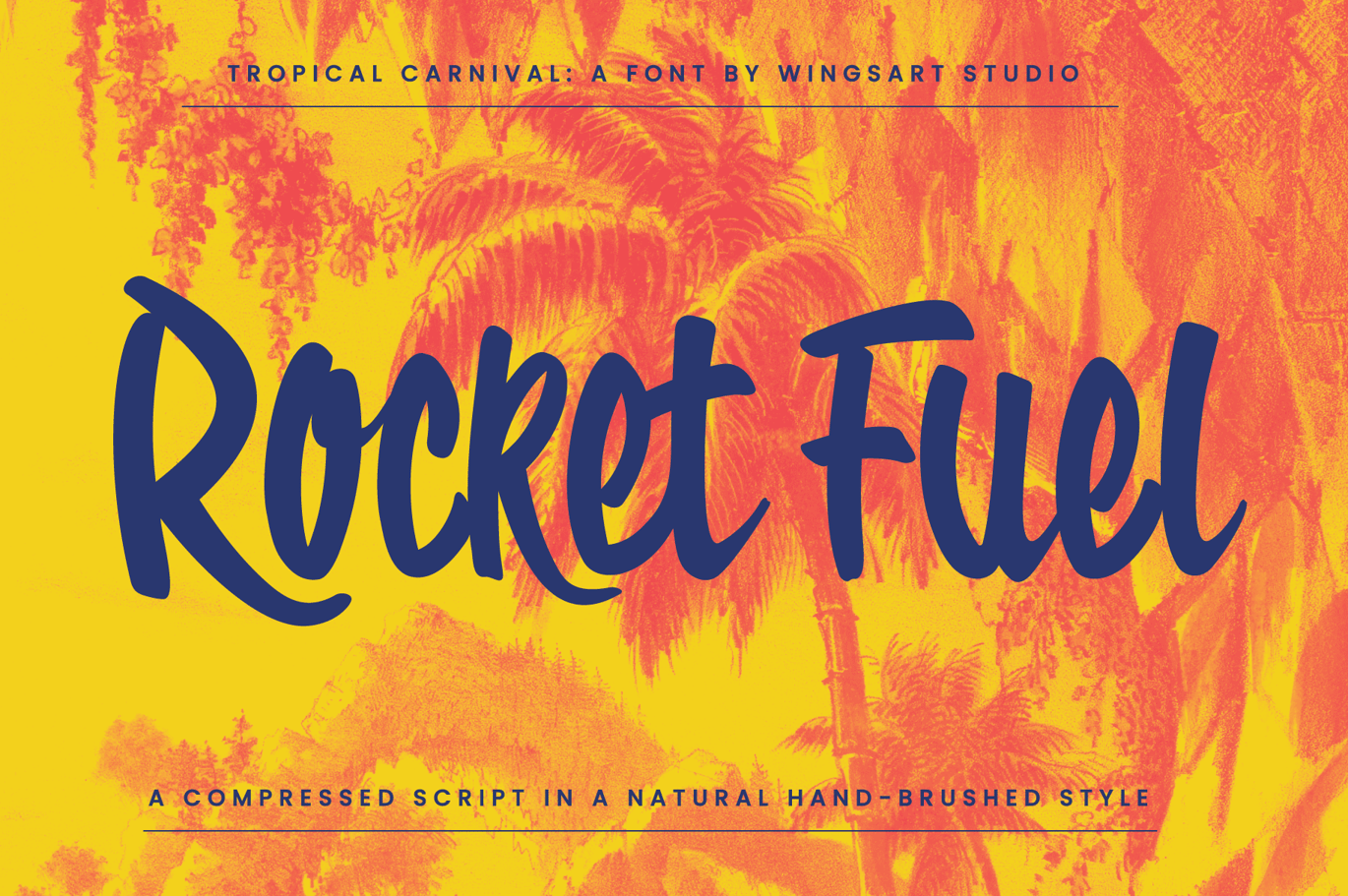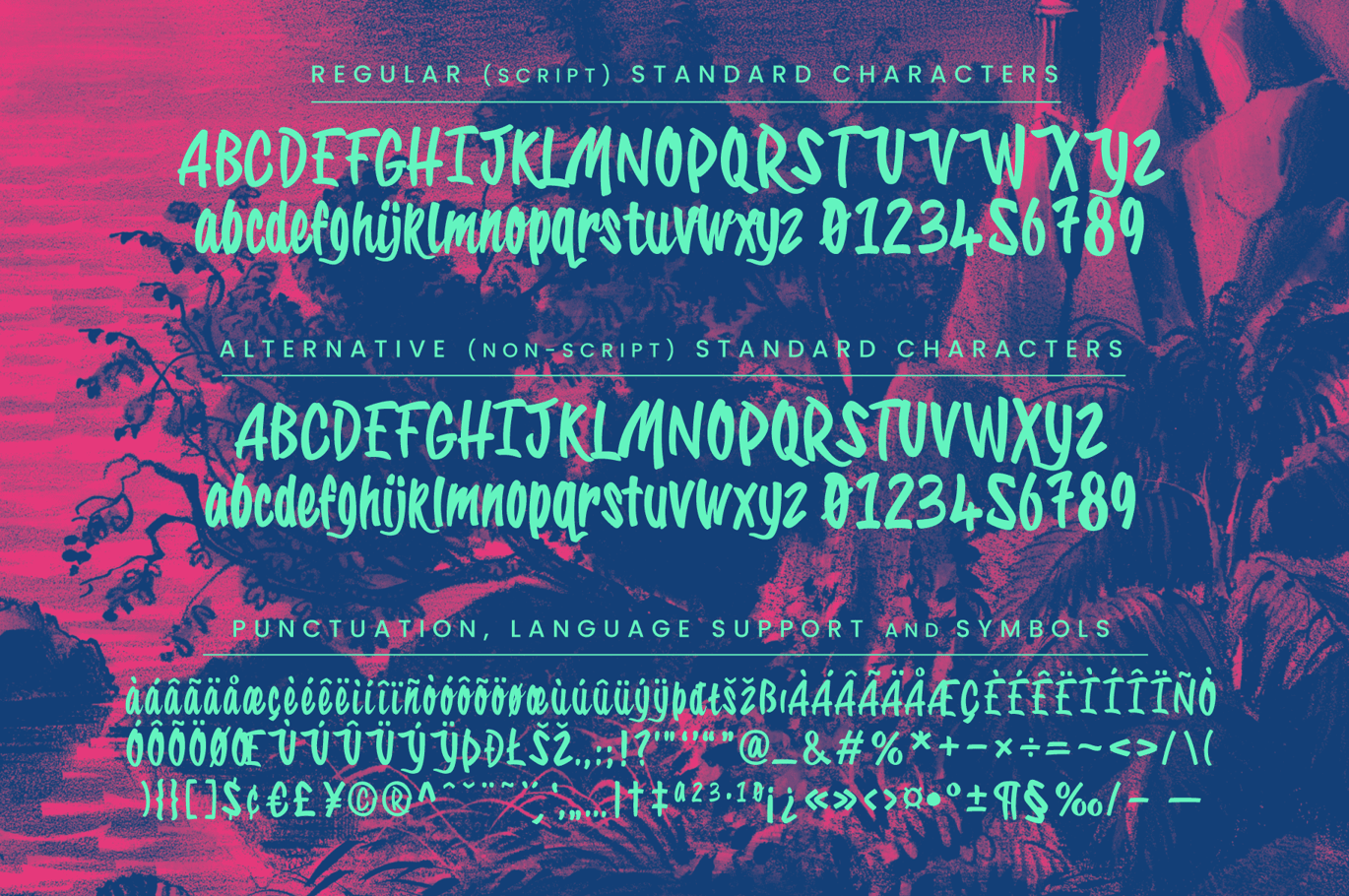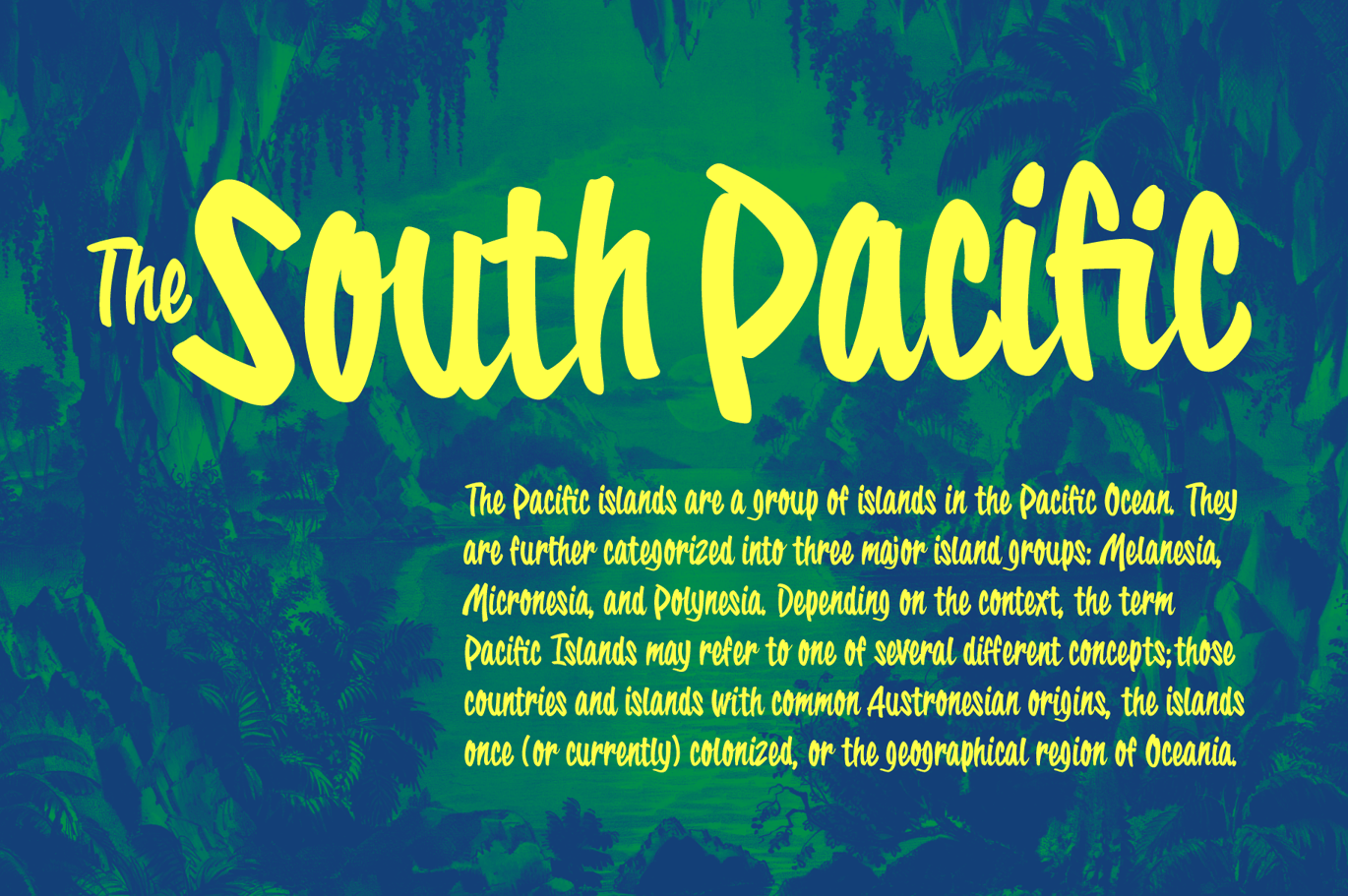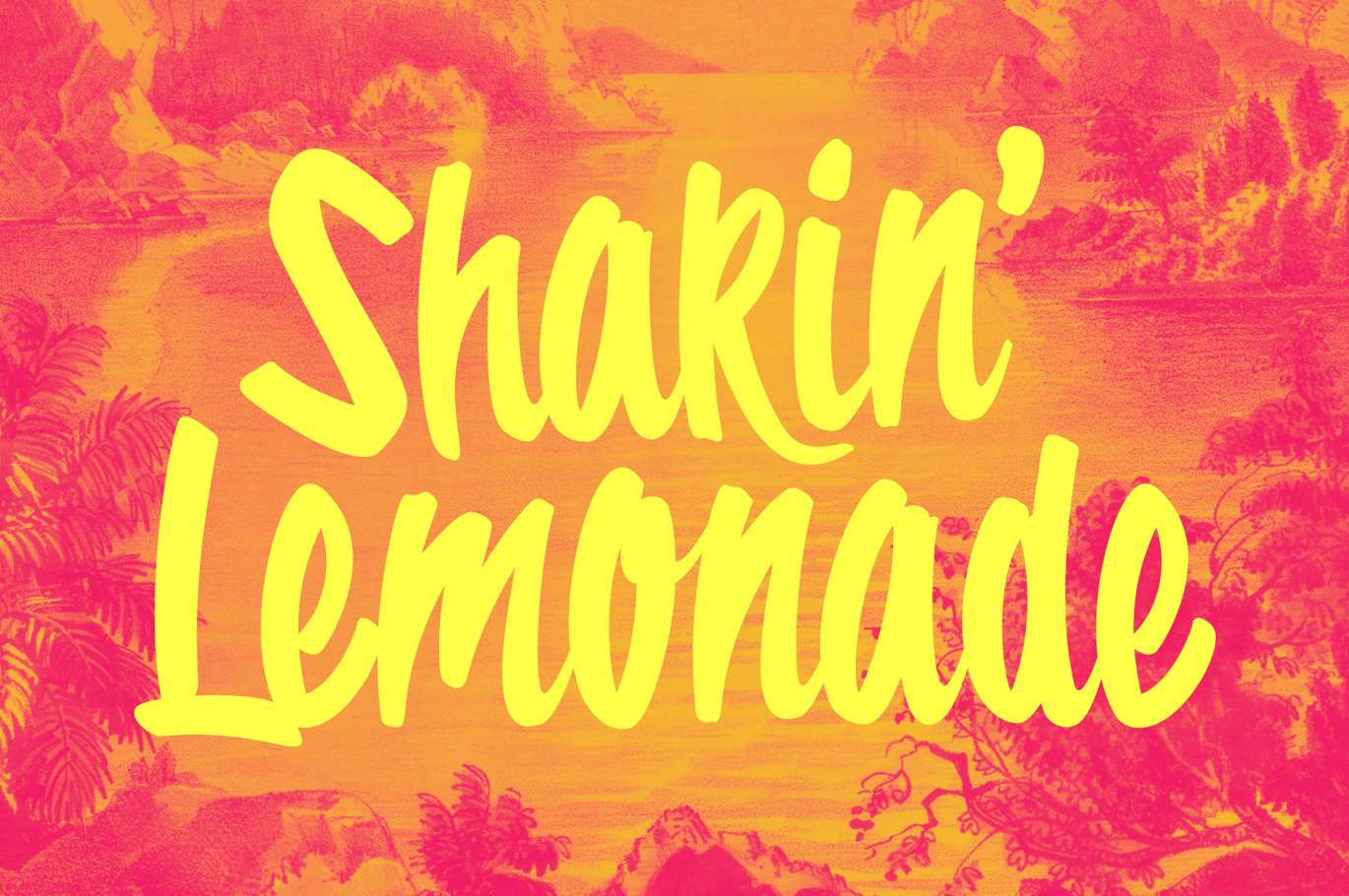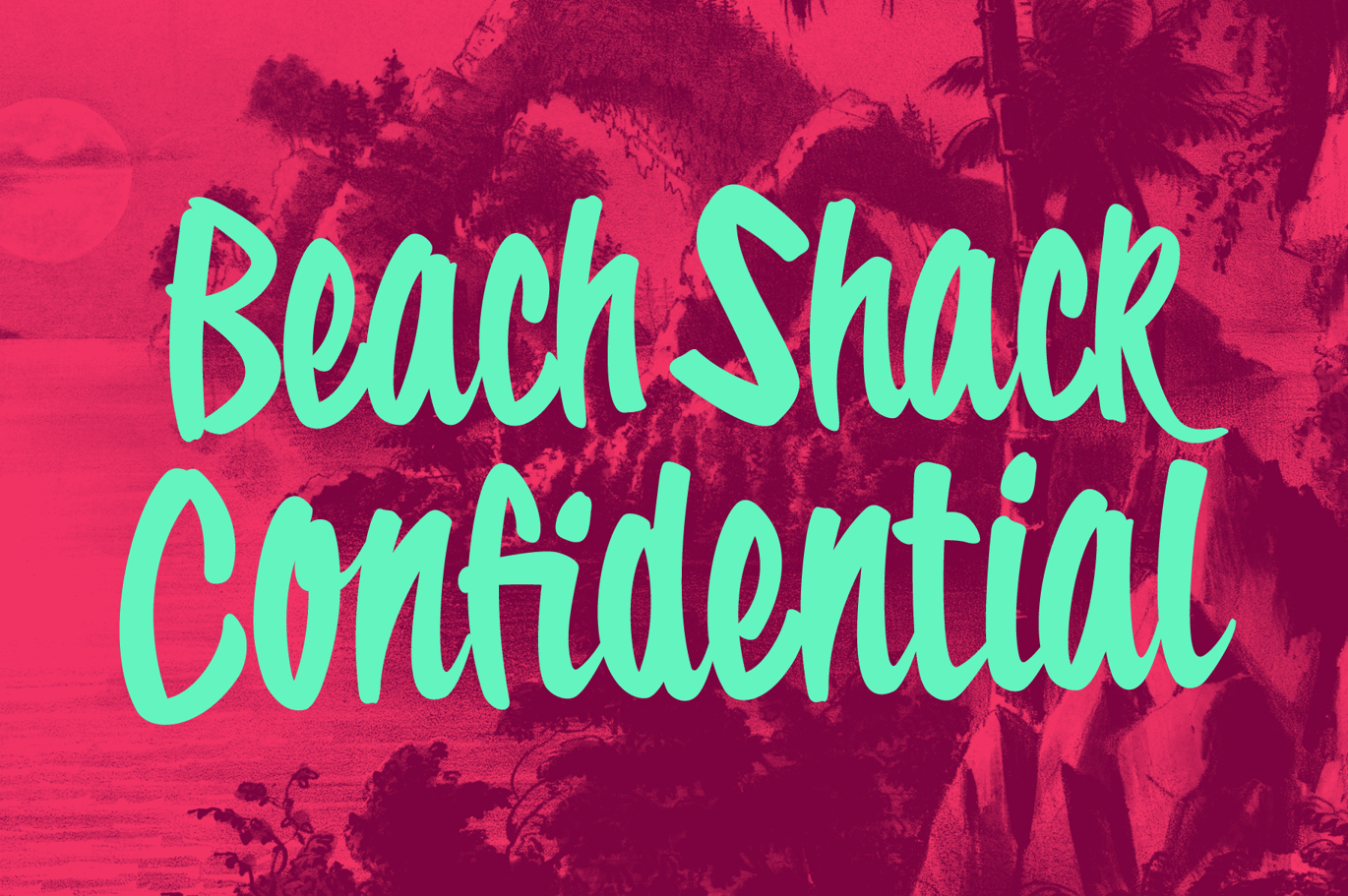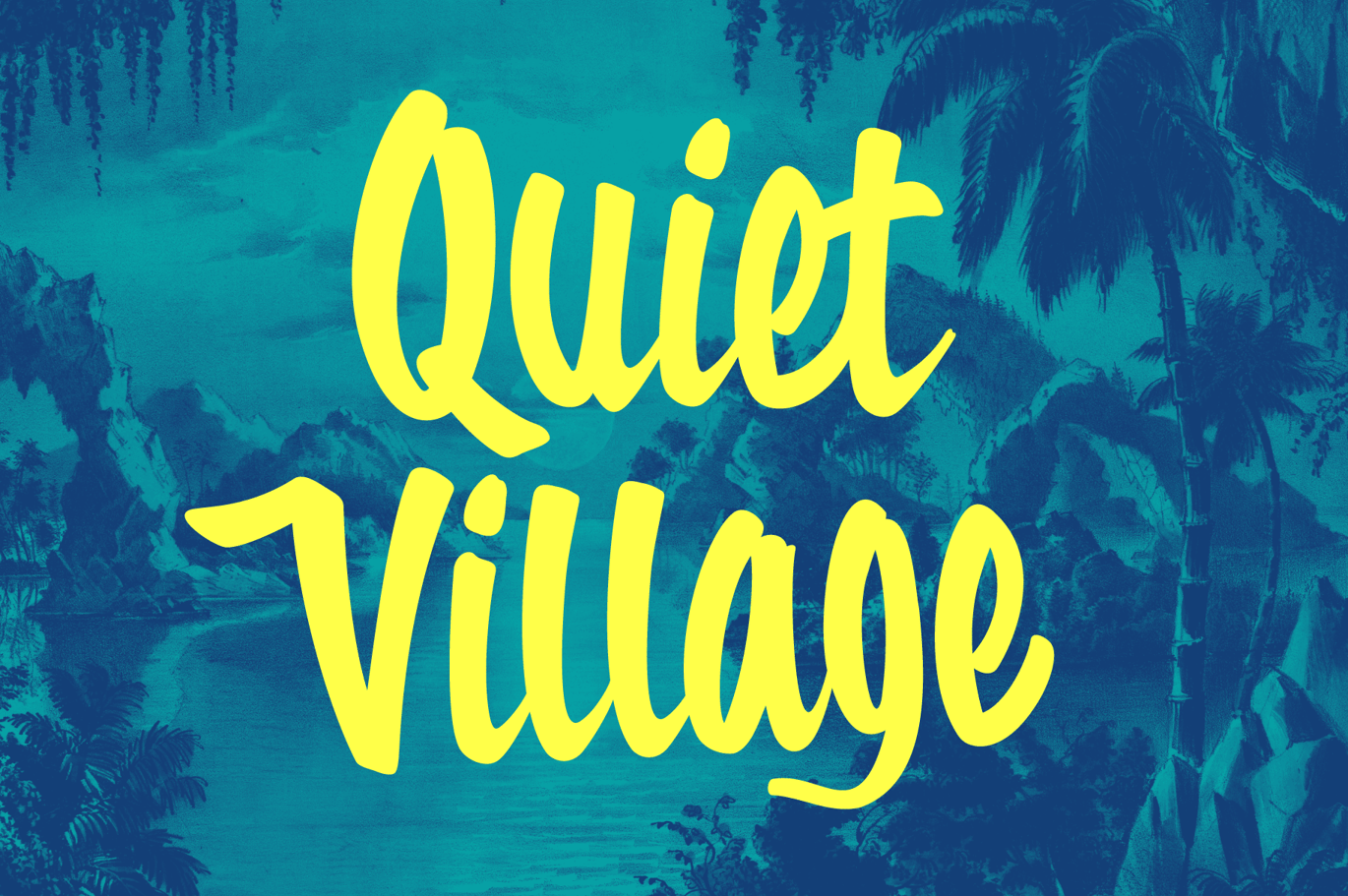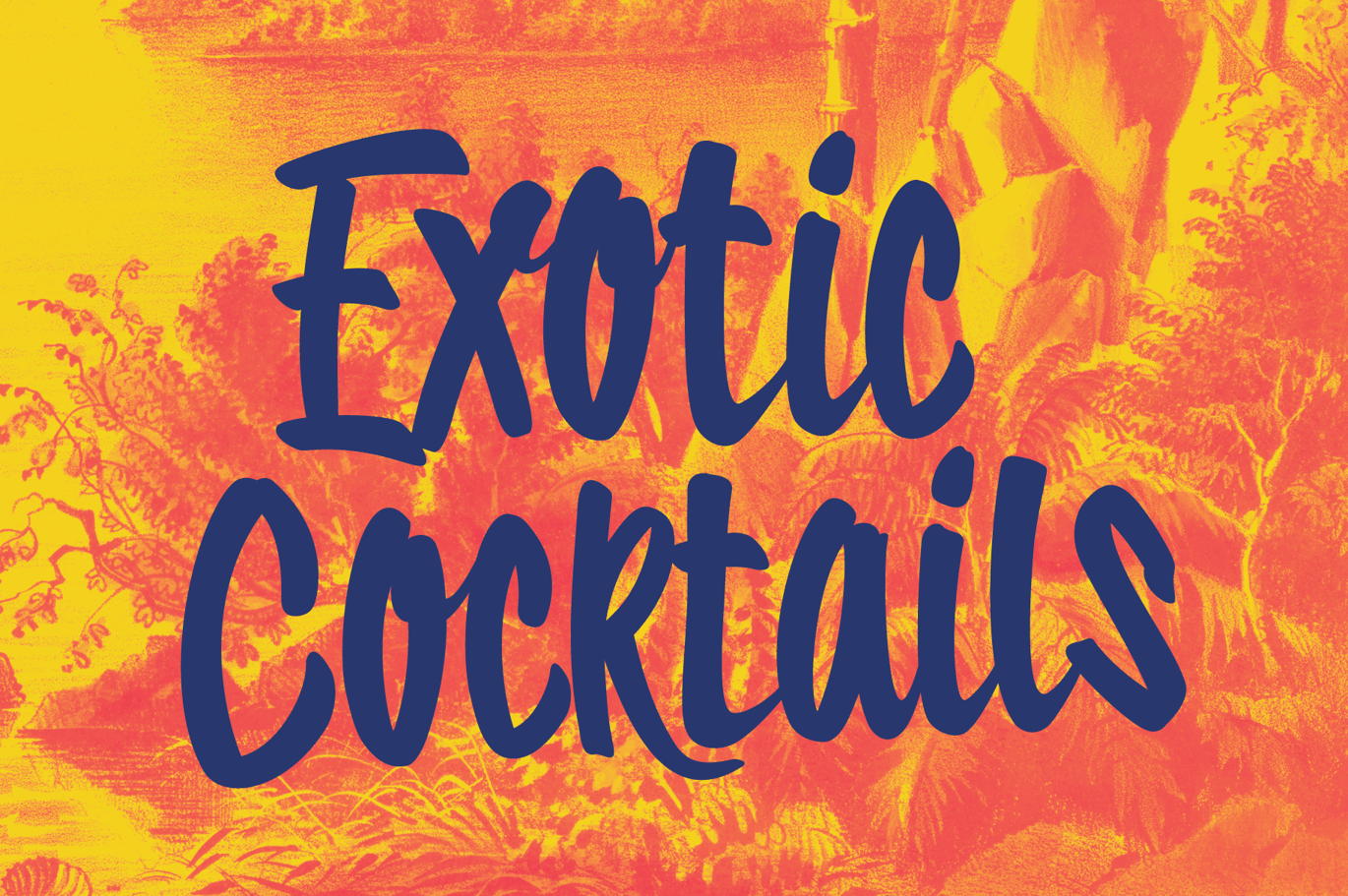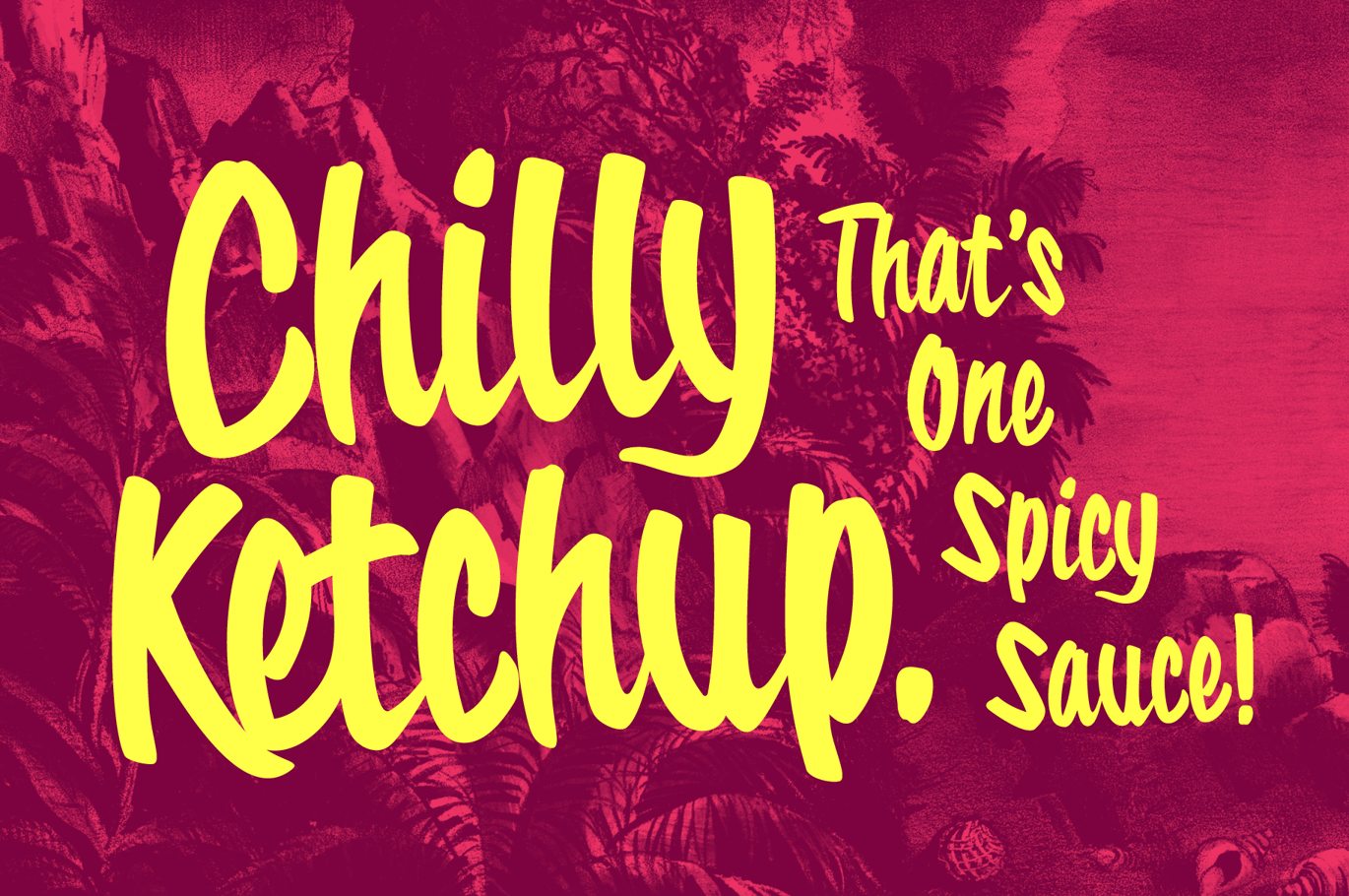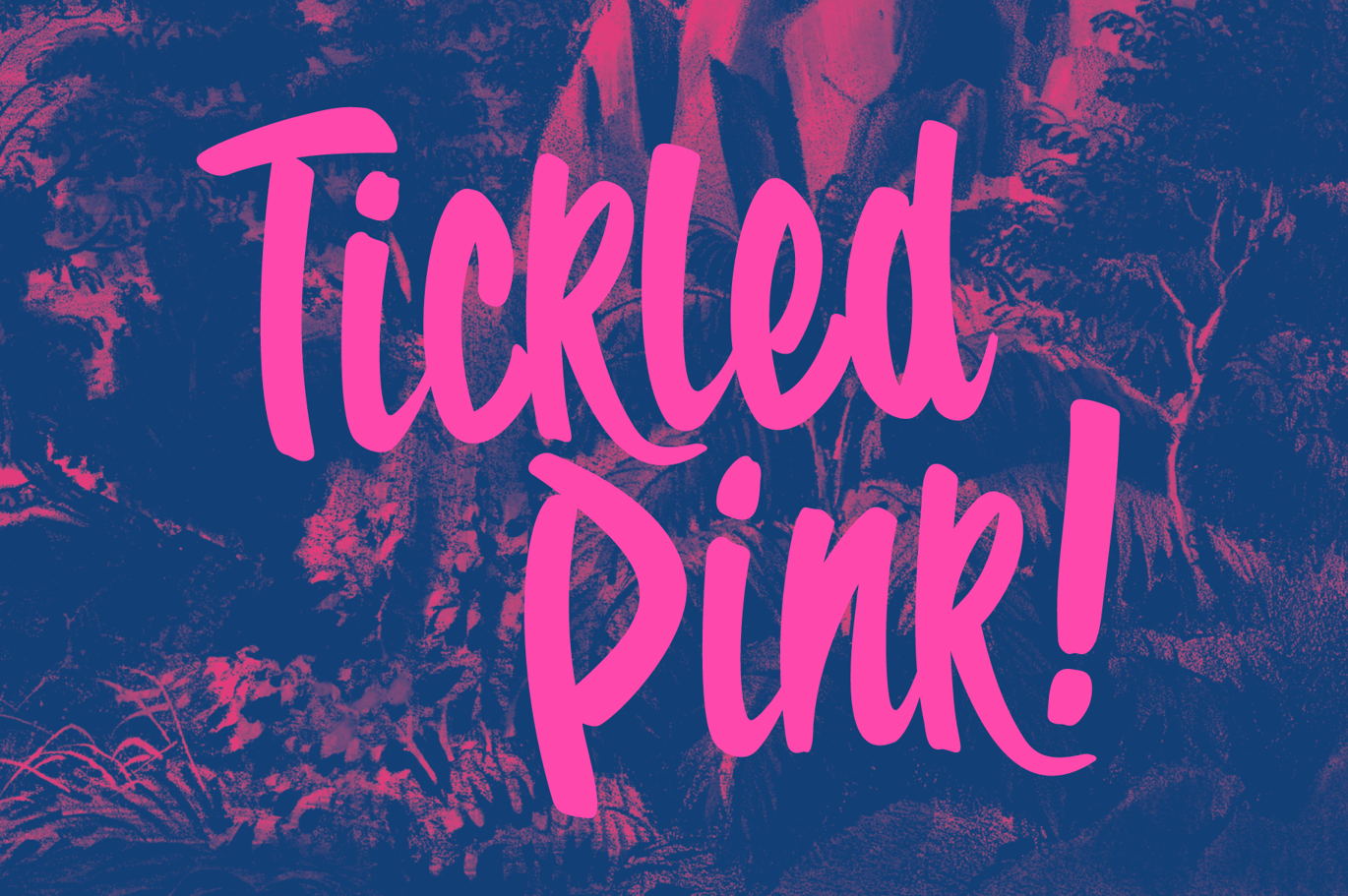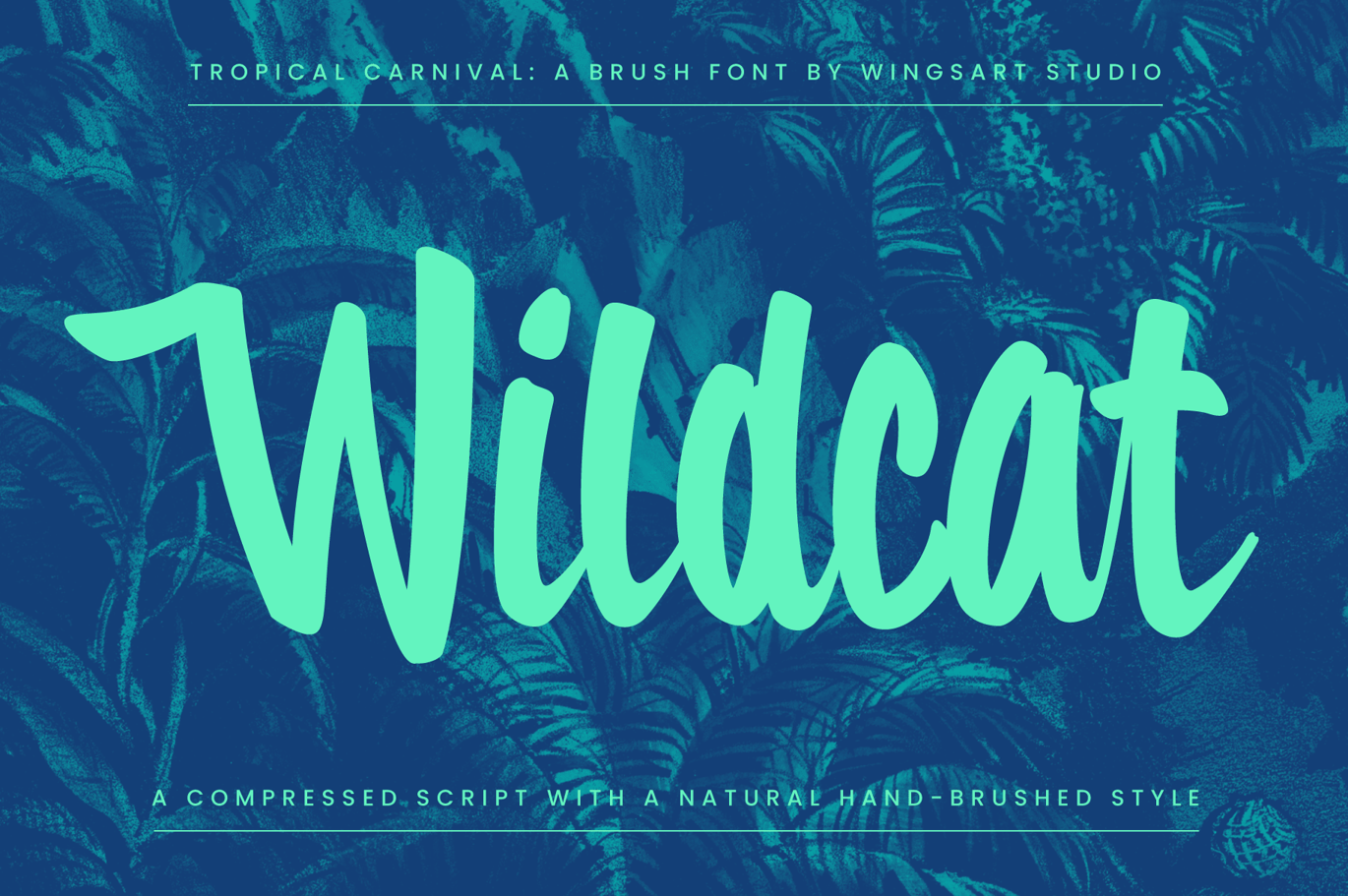
Tropical Carnival: A Sunny Brush Script Font
With the Summer season quickly approaching, now is the perfect time to introduce ’Tropical Carnival’, a distinctly sunny brush-script with a happy and laid-back style, perfect for getting in the vacation mood.
It’s a great choice for projects that need a fun-loving attitude with a versatility that works across everything from food and beverage packaging, make-up, comic books, retro tiki posters, or music, film and TV titles. When you need to present bright and positive ideas, this is the font for you!
Tropical Carnival includes a complete set of uppercase and lowercase characters, along with numerals, punctuation, symbols and language support. It also comes with a complete set of alternatives characters for those occasions when you don’t always need scripts, such as in stop points and headers.
Thanks to the built-in Opentype features it’s also super easy to achieve a natural-looking handwritten flow to your lettering, with custom ligatures that automatically switch to the best option as you work. Simply turn on Standard Ligatures in your Opentype/Glyphs panel to activate this feature.
This is a font for spreading up-lifting messages, to be enjoyed with a coconut cocktail as you day-dream about your next tropical getaway. Happy trails!